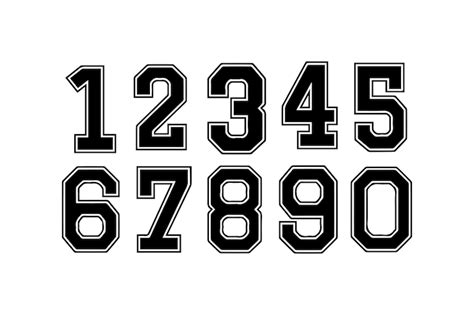
Bold Number Fonts. Web make a statement with bold fonts! Enhance your design and grab attention with our selection of strong and impactful.
Web bold number fonts jersey m54 by justme54s blang haloc by khurasan spicy noodle by khurasan coffee terrace by. Web make a statement with bold fonts! Enhance your design and grab attention with our selection of strong and impactful.
Web make a statement with bold fonts! Enhance your design and grab attention with our selection of strong and impactful. Web make a statement with bold fonts! Web bold number fonts jersey m54 by justme54s blang haloc by khurasan spicy noodle by khurasan coffee terrace by.